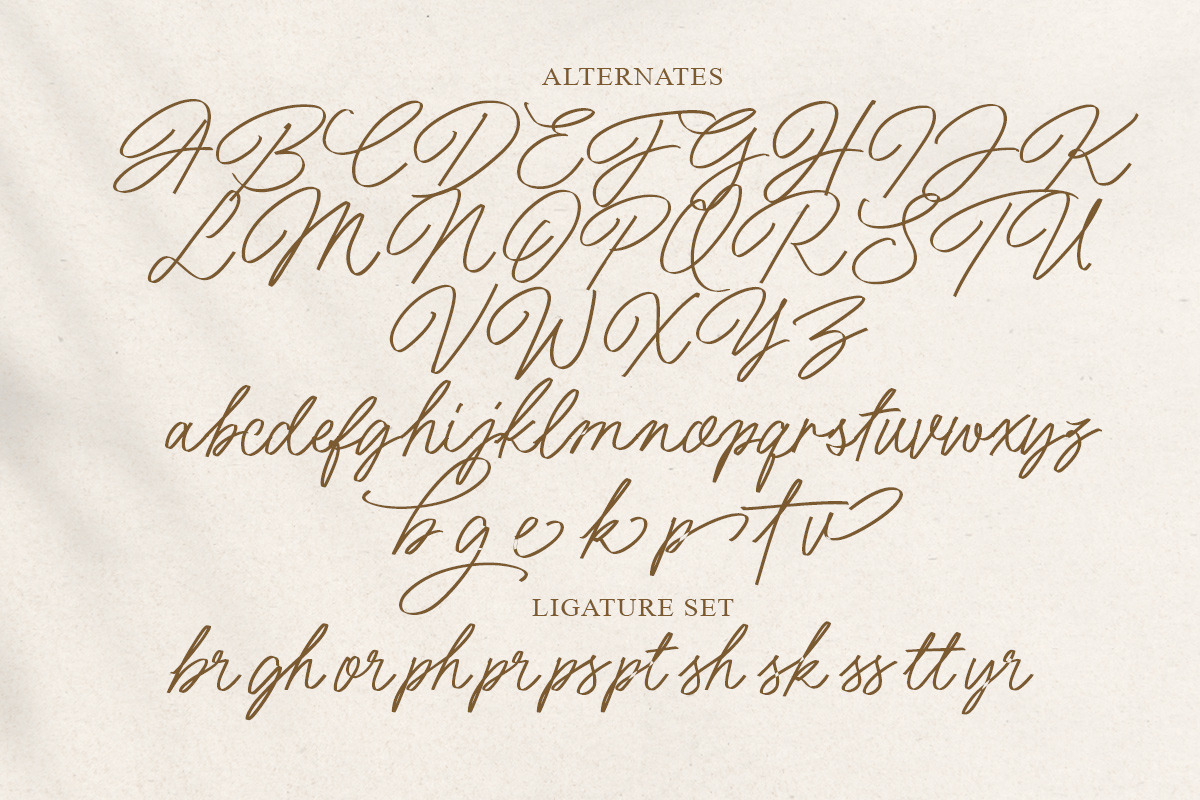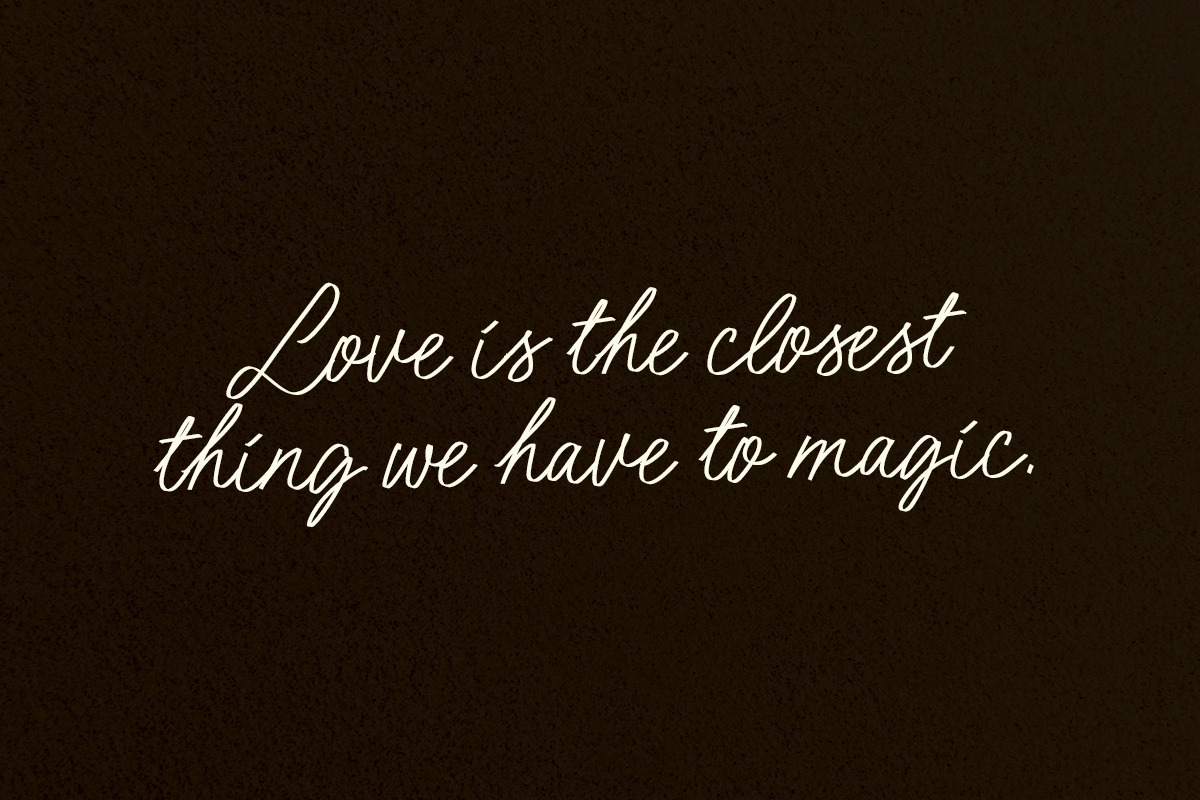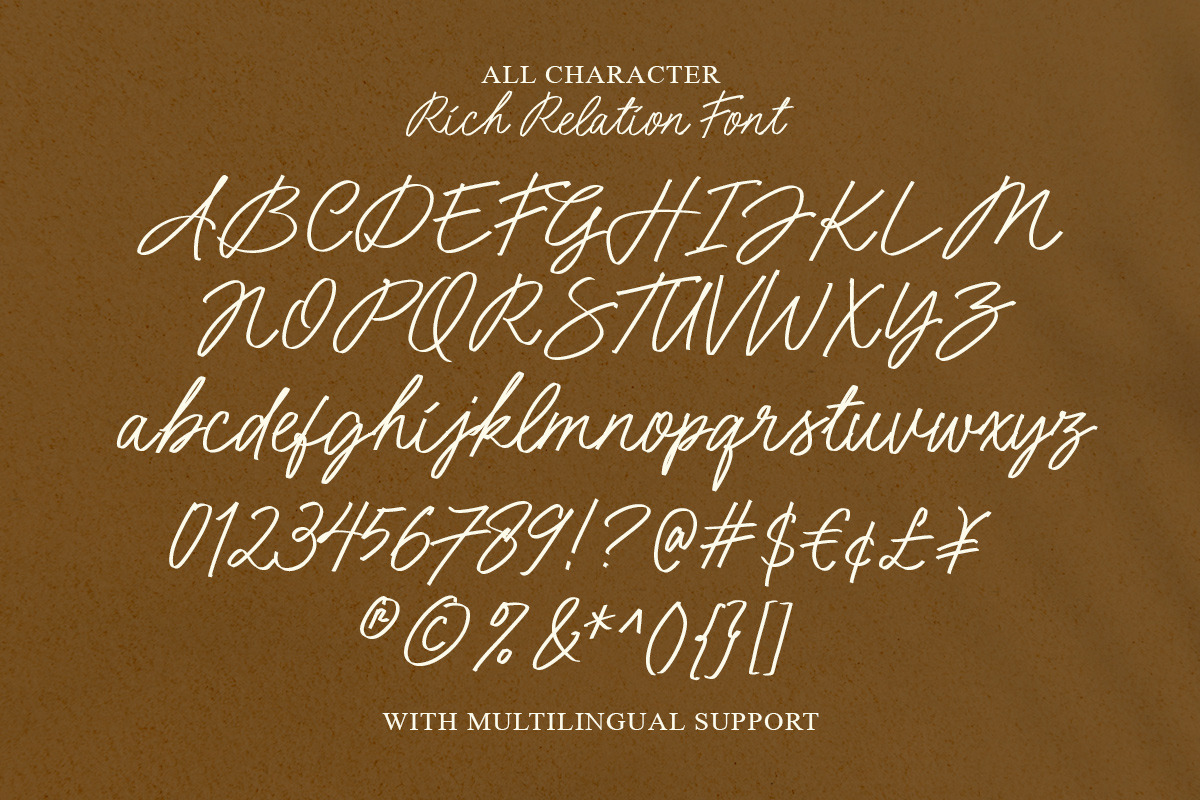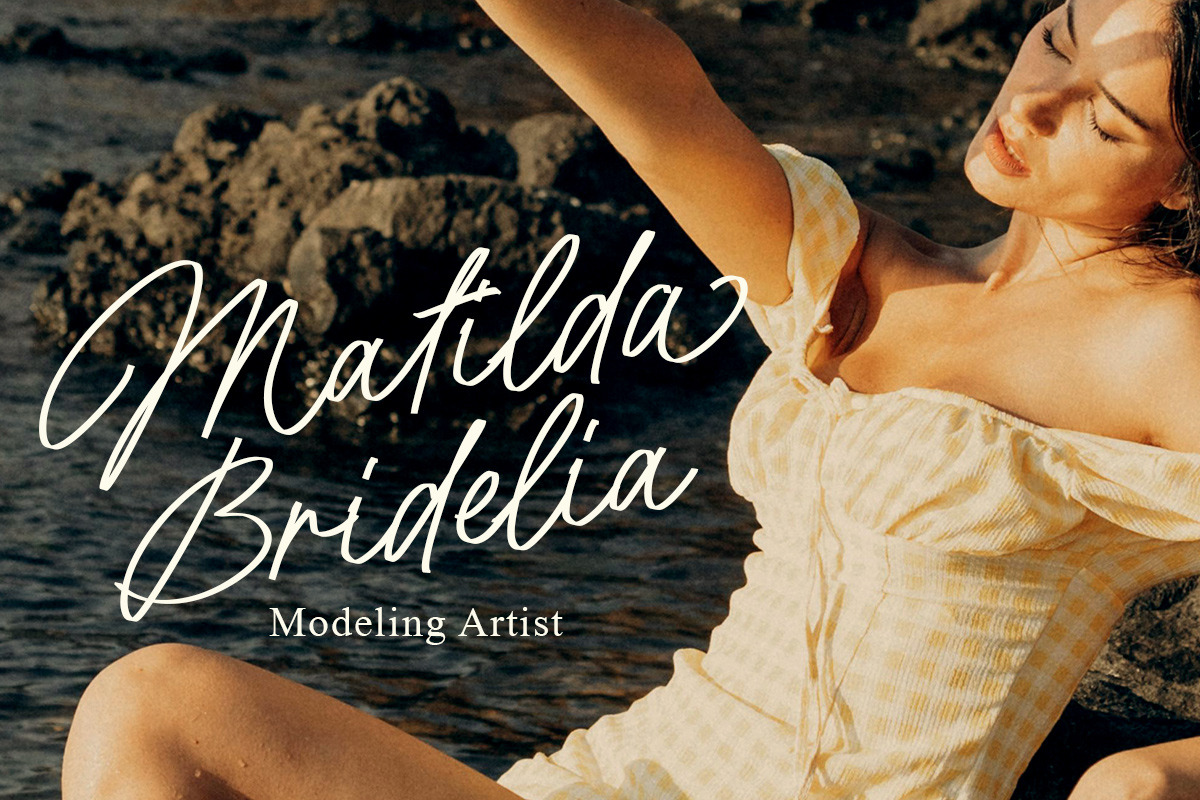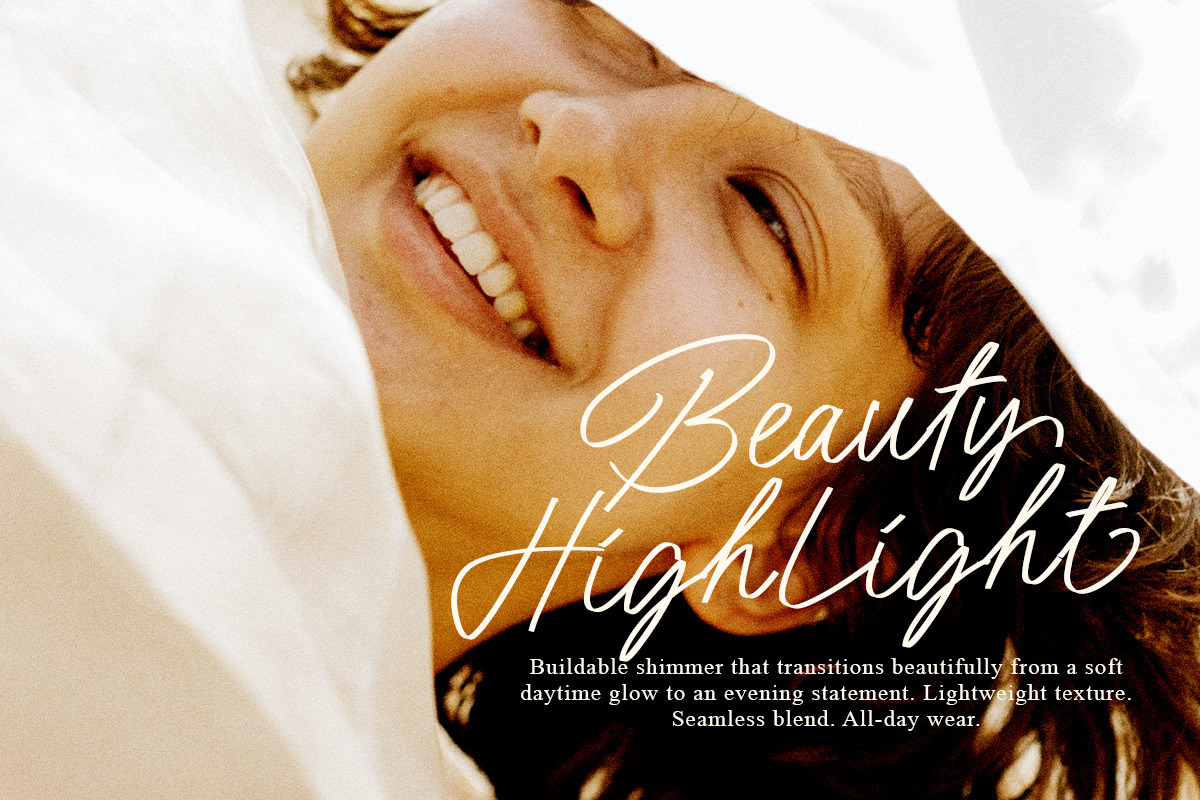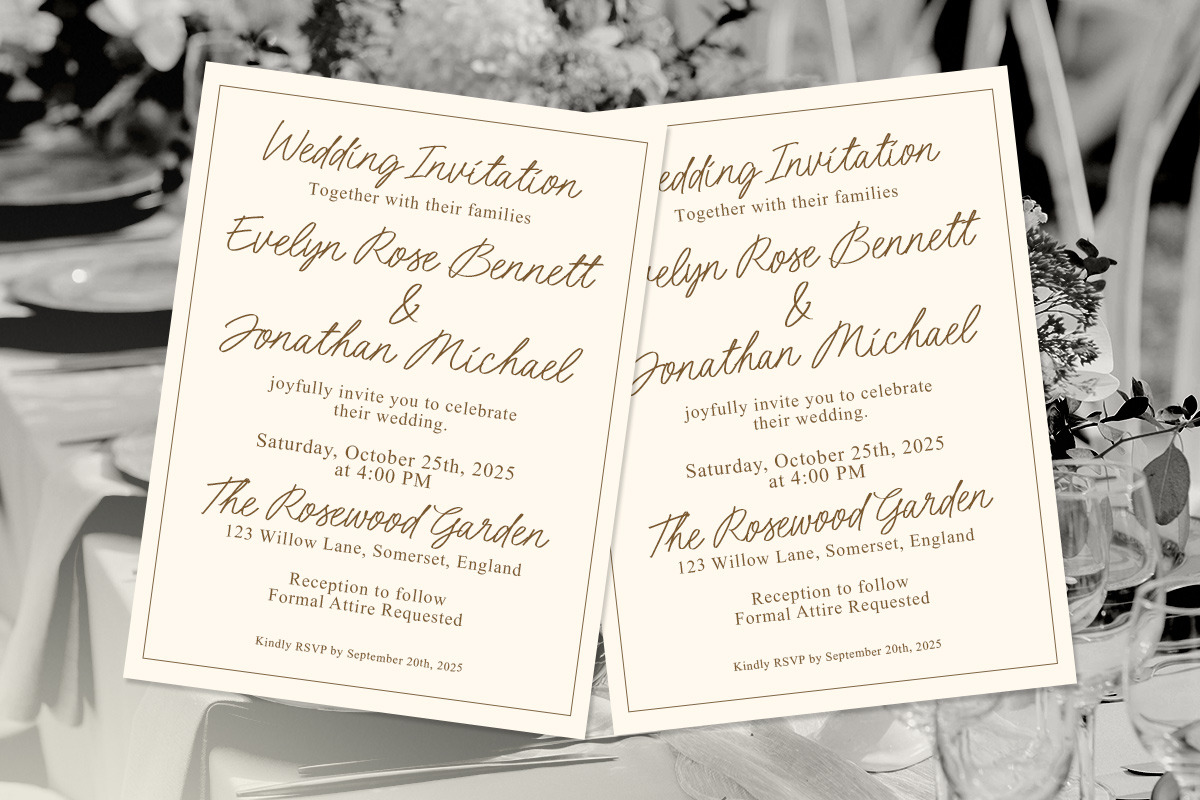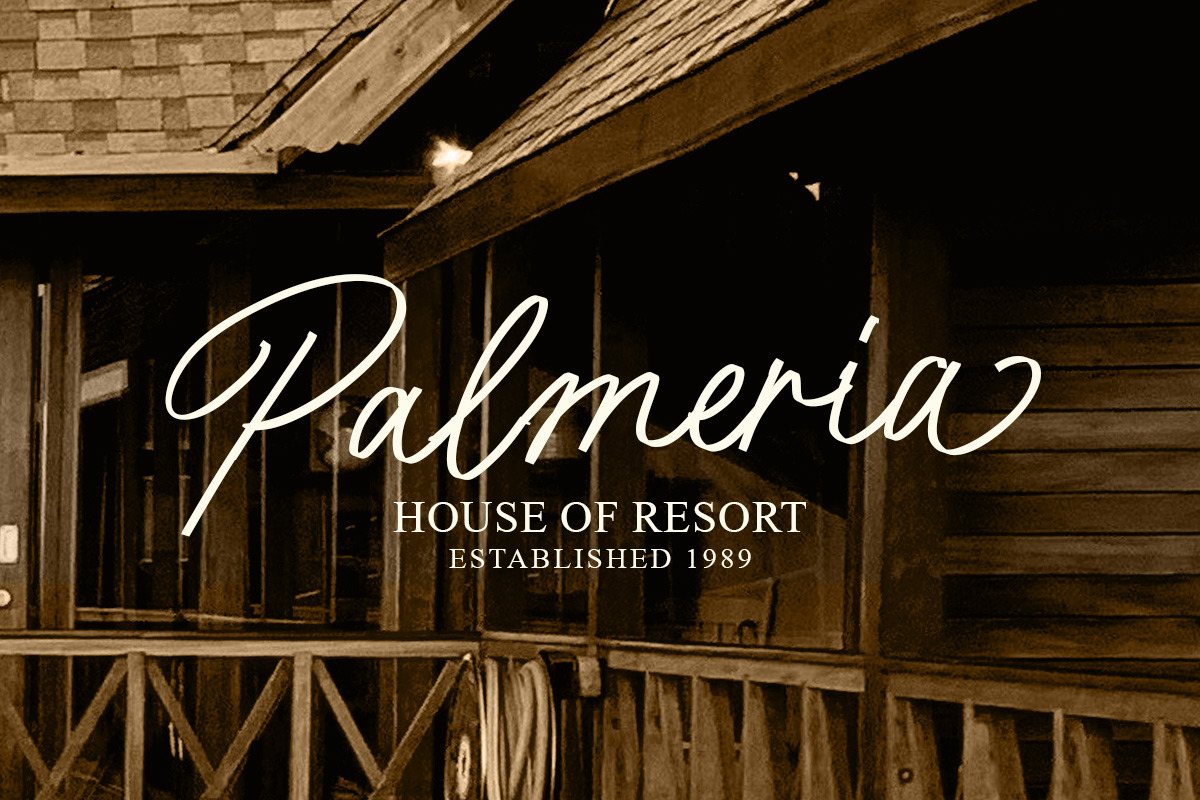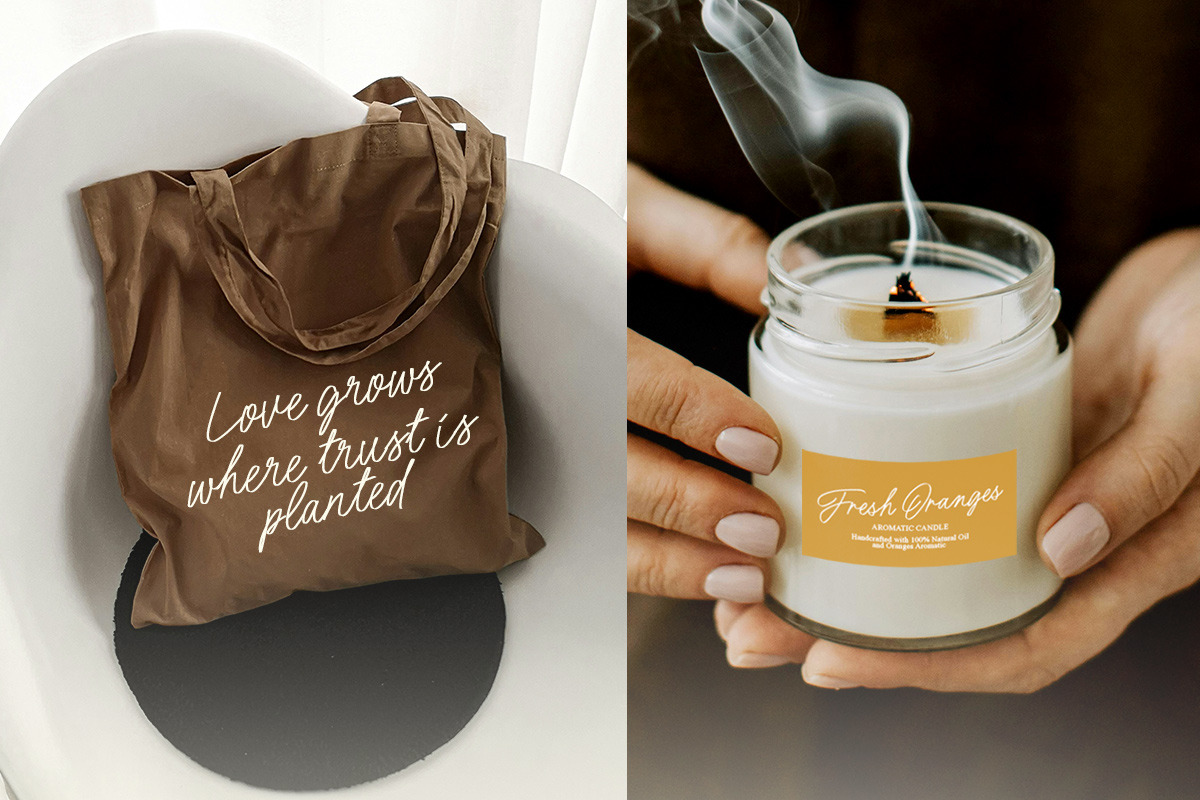
Rich Relation Handwritten Script
Rich Relation is a graceful handwritten script font that feels like a personal note written with care—smooth, flowing, and full of warmth. With its elegant curves and natural pen strokes, it’s perfect for wedding invitations, branding, greeting cards, product packaging, and any design that needs a touch of sincerity and sophistication. Whether used for a headline or a delicate signature, Rich Relation brings a sense of intimacy and style that draws people in.